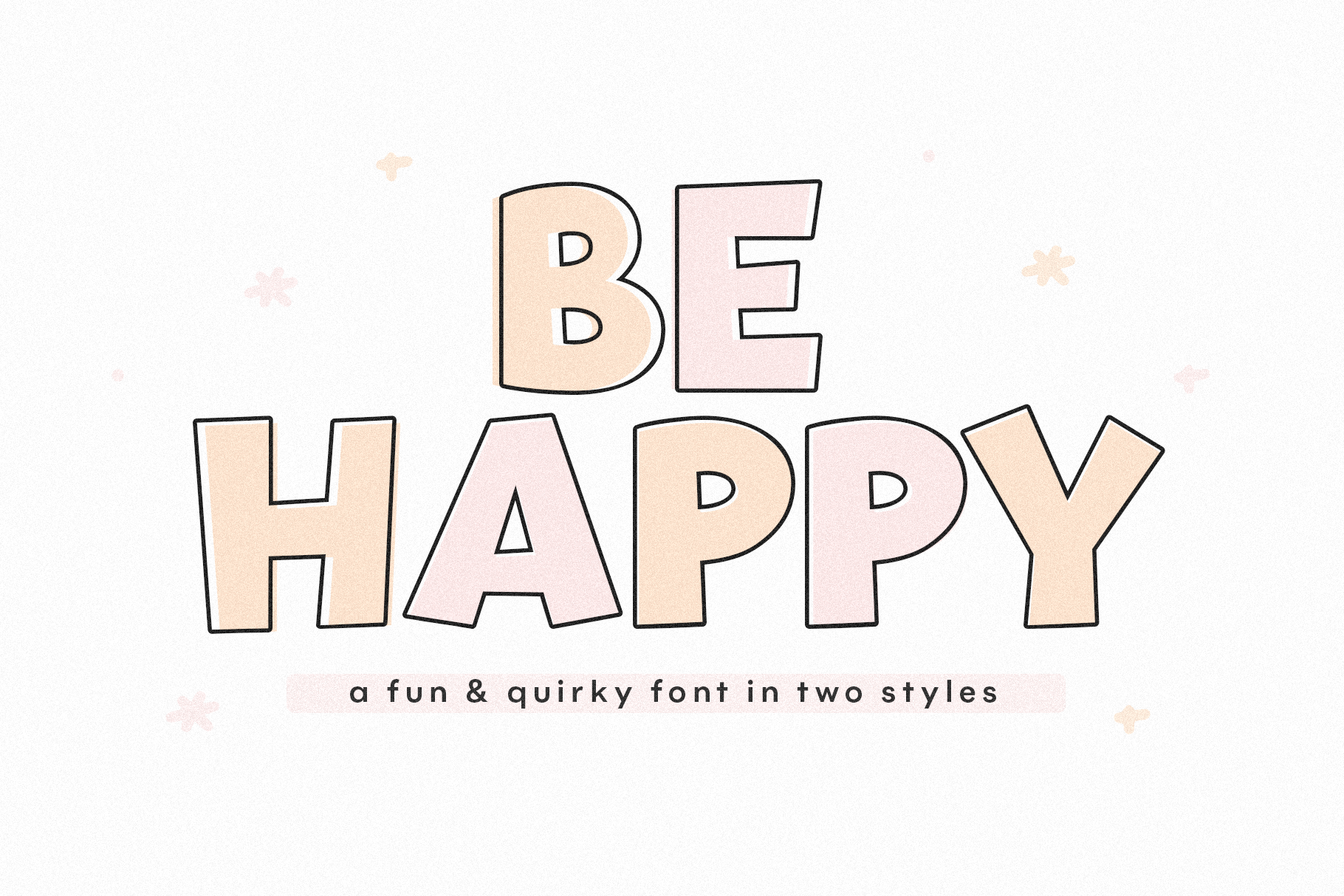
Be Happy | Fun Handwritten Font
Be Happy is a fun handwritten font! Includes an off-center outline font perfect for creating a trendy look!
This font will work great for procreate designs, quotes, svg designs, shirts, branding, logos, prints and more!